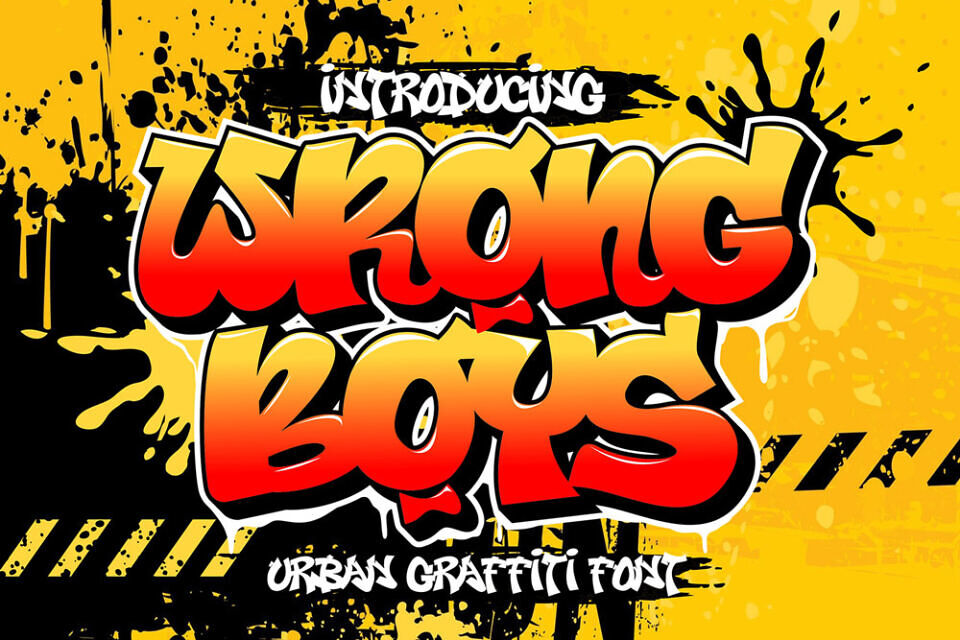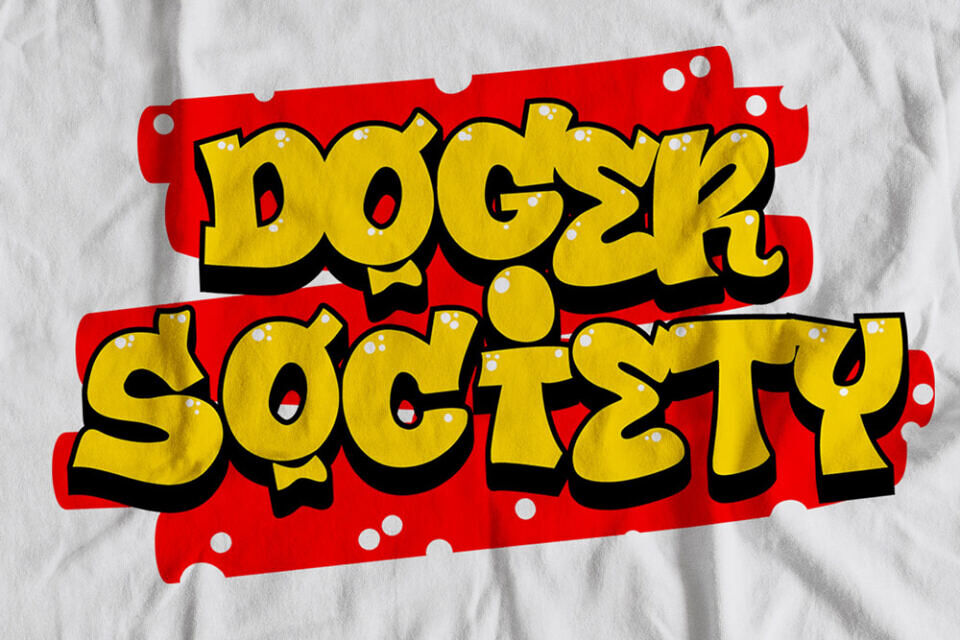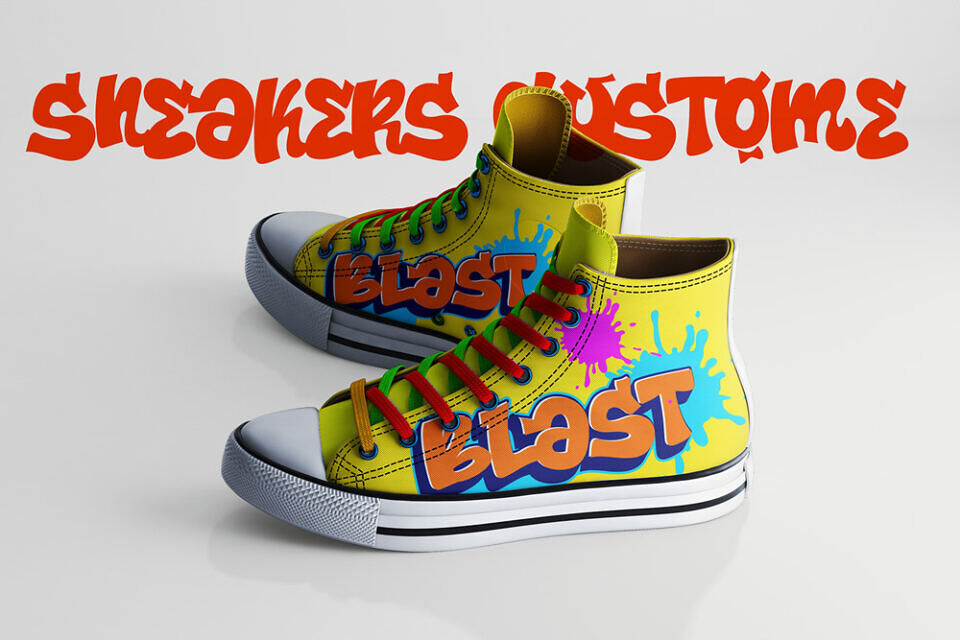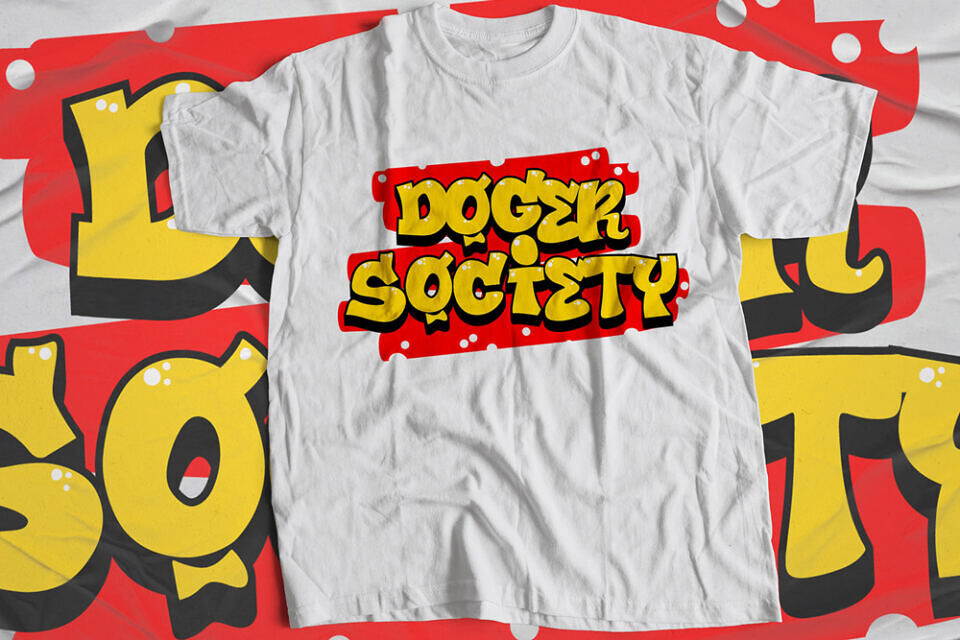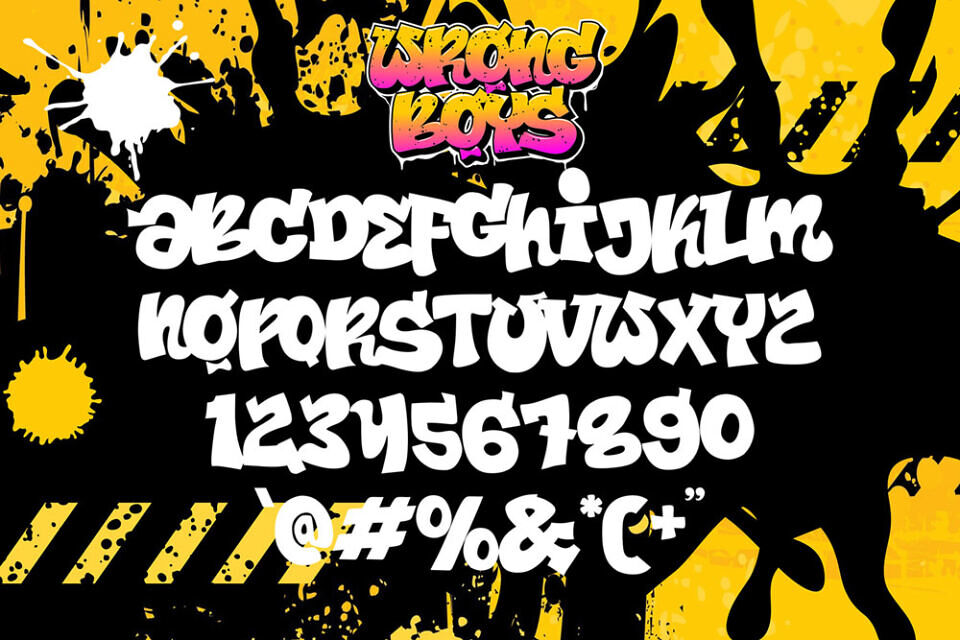
Wrong Boys is a bold chubby graffiti font inspired by playful street art, bubble graffiti lettering, urban wall murals, and modern streetwear typography. Designed with thick rounded letterforms and energetic urban character, this graffiti display font delivers powerful visual impact while maintaining a fun and approachable personality.
Whether you are creating streetwear branding, gaming graphics, music artwork, social media content, or urban merchandise, Wrong Boys helps your typography stand out with authentic street culture energy.